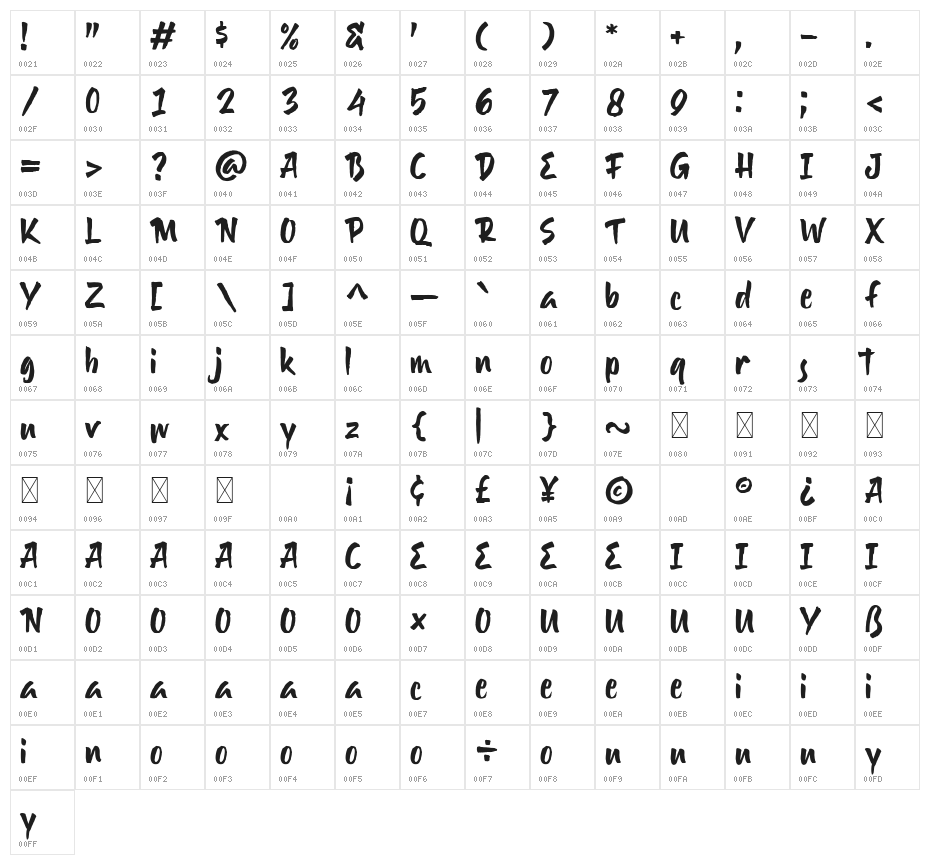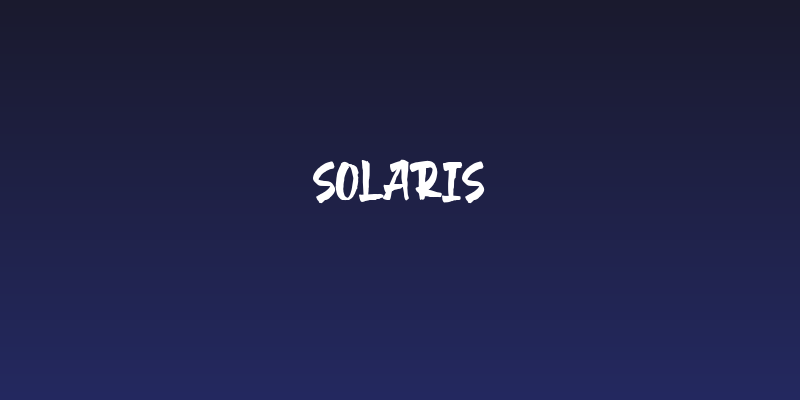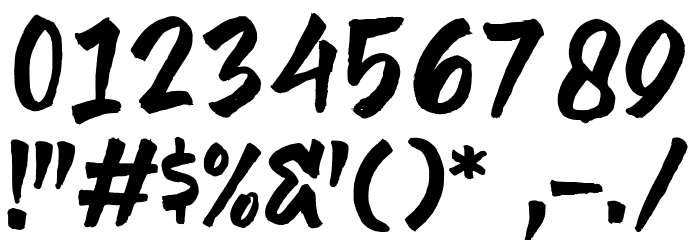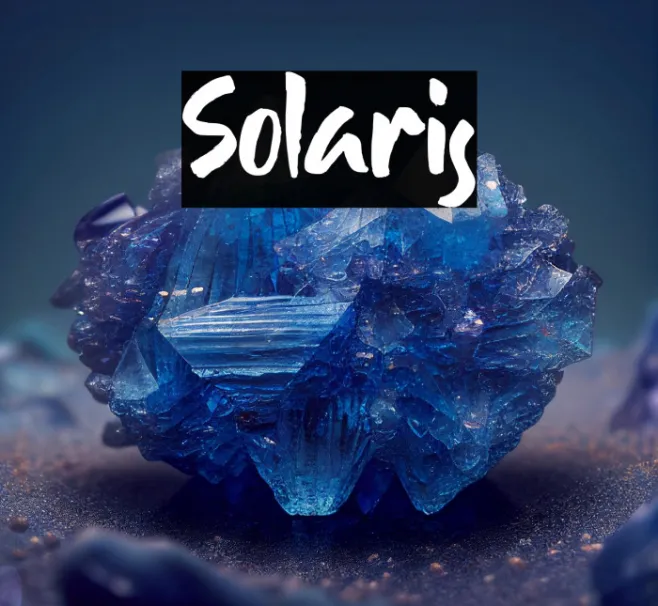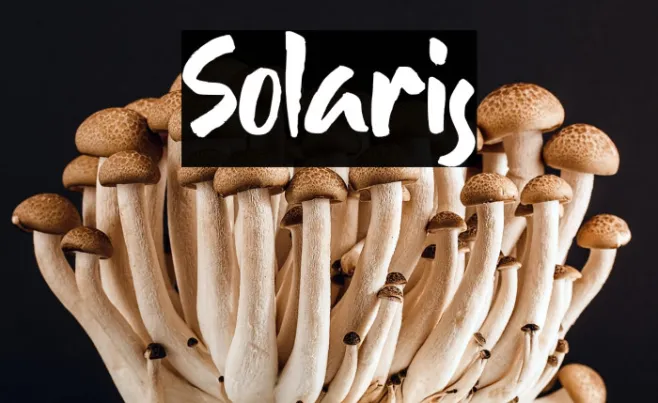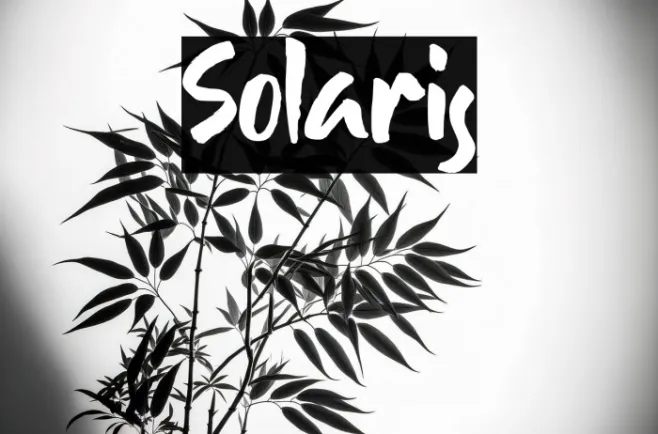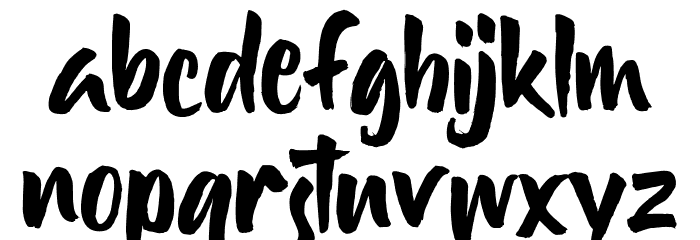
Solaris Font
Solaris Description
This font exudes a bold and expressive handwritten style, characterized by its dynamic and energetic strokes. The letters are crafted with a brush-like texture, giving them a lively and informal appearance. The uppercase letters are robust and commanding, while the lowercase letters maintain a consistent flow with slightly exaggerated curves. The numerals are equally bold, ensuring they stand out in any composition. Special characters are creatively integrated, maintaining the overall aesthetic. This font's unique style makes it suitable for projects that require a personal touch or a creative flair.